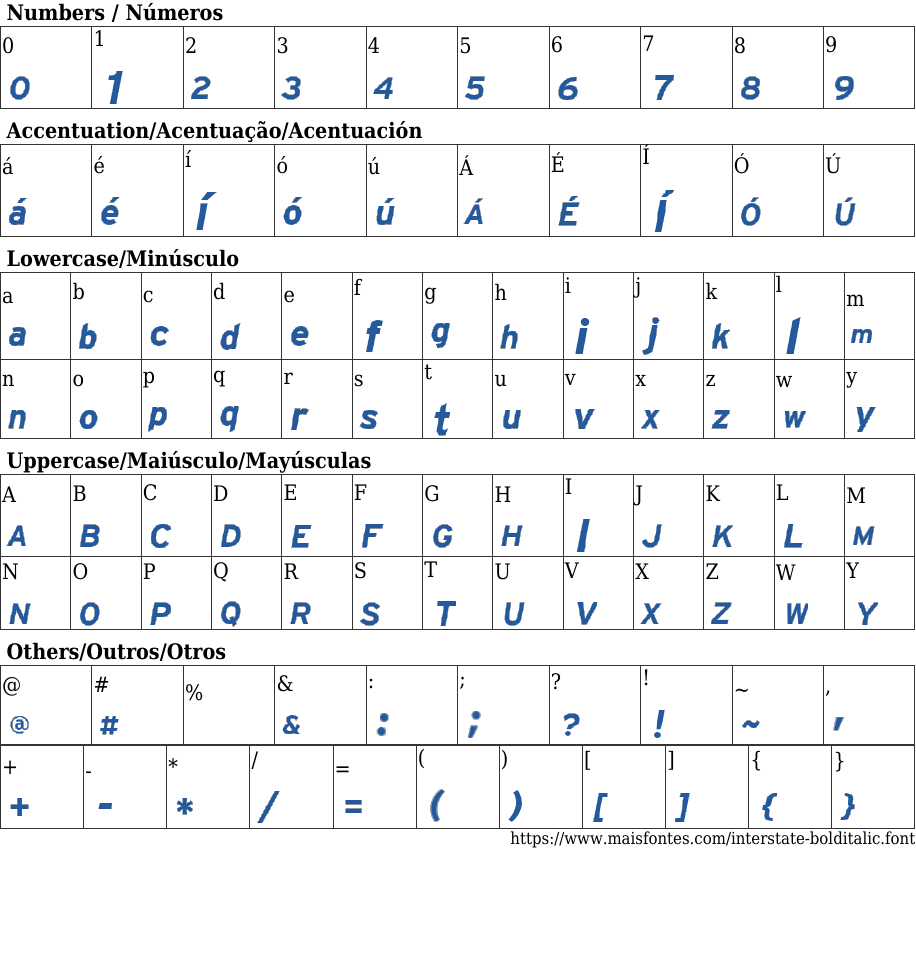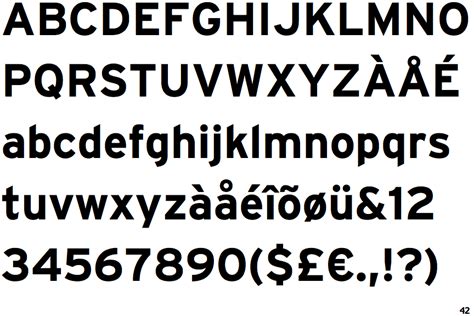
Interstate Bold Font . The typeface is based on style type e of the. Fonts are in ttf, otf format and.
Web download overpass font family · free for commercial use · free & open source typeface based on the u.s. Web to learn more about the font and typography of the interstate bold font, simply enter the text in the. It belongs to the unclassified category.
Interstate Bold Font - The typeface is based on style type e of the. It belongs to the unclassified category. Web interstate is a reinterpretation of highway gothic, the official typeface for american highway signage. Web to learn more about the font and typography of the interstate bold font, simply enter the text in the. Moreover, you can embed it to your website with.
Interstate Bold Font - Web interstate is a reinterpretation of highway gothic, the official typeface for american highway signage. Moreover, you can embed it to your website with @font. Fonts are in ttf, otf format and. Free fonts by category, type, daily updates. The typeface is based on style type e of the.
Interstate Bold Font - Web interstate is a reinterpretation of highway gothic, the official typeface for american highway signage. Web interstate bold is a font by adobe systems incorporated that can be used for personal or commercial purposes. Interstate highway road signage type system; Web download overpass font family · free for commercial use · free & open source typeface based on the u.s..
Interstate Bold Font - Free fonts by category, type, daily updates. Fonts are in ttf, otf format and. The typeface is based on style type e of the. Web interstate is a reinterpretation of highway gothic, the official typeface for american highway signage. Web to learn more about the font and typography of the interstate bold font, simply enter the text in the.
Interstate Bold Font - Web download overpass font family · free for commercial use · free & open source typeface based on the u.s. Fonts are in ttf, otf format and. Web interstate bold is a font by adobe systems incorporated that can be used for personal or commercial purposes. Web interstate is a reinterpretation of highway gothic, the official typeface for american highway.
Interstate Bold Font - It has 36 styles, including. It belongs to the unclassified category. Moreover, you can embed it to your website with @font. The typeface is based on style type e of the. Web interstate bold is a font by adobe systems incorporated that can be used for personal or commercial purposes.
Interstate Bold Font - Web download overpass font family · free for commercial use · free & open source typeface based on the u.s. Interstate highway road signage type system; It has 36 styles, including. Web interstate is a reinterpretation of highway gothic, the official typeface for american highway signage. The typeface is based on style type e of the.
Interstate Bold Font - Interstate highway road signage type system; It belongs to the unclassified category. The typeface is based on style type e of the. Moreover, you can embed it to your website with @font. It has 36 styles, including.
Interstate Bold Font - It has 36 styles, including. Web interstate bold is a font by adobe systems incorporated that can be used for personal or commercial purposes. Fonts are in ttf, otf format and. The typeface is based on style type e of the. Web interstate is a reinterpretation of highway gothic, the official typeface for american highway signage.
Interstate Bold Font - Free fonts by category, type, daily updates. Moreover, you can embed it to your website with @font. Web download overpass font family · free for commercial use · free & open source typeface based on the u.s. Fonts are in ttf, otf format and. The typeface is based on style type e of the.
Interstate Bold Font - It has 36 styles, including. Web download overpass font family · free for commercial use · free & open source typeface based on the u.s. The typeface is based on style type e of the. Moreover, you can embed it to your website with @font. Interstate highway road signage type system;